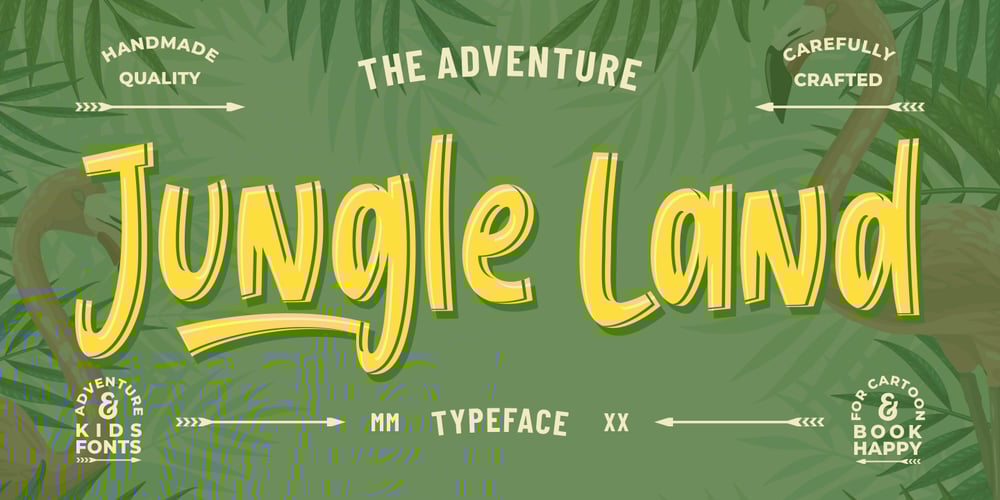
Jungle Land Font Family was designed by Risman Ginarwan and published by Garisman Studio. Jungle Land contains 1 styles and family package options. Jungle Land combines attractive curves with a fresh urban edge; delivering a stylish display script which is guaranteed to add an eye-catching appeal to your logo designs, brand imagery, quotes, product packaging, merchandise & social media posts. Features: – Uppercase & Lowercase letters – Numbers & Punctuation – Ligature – Simple installation Work for PC and MAC – PUA Encoded Open